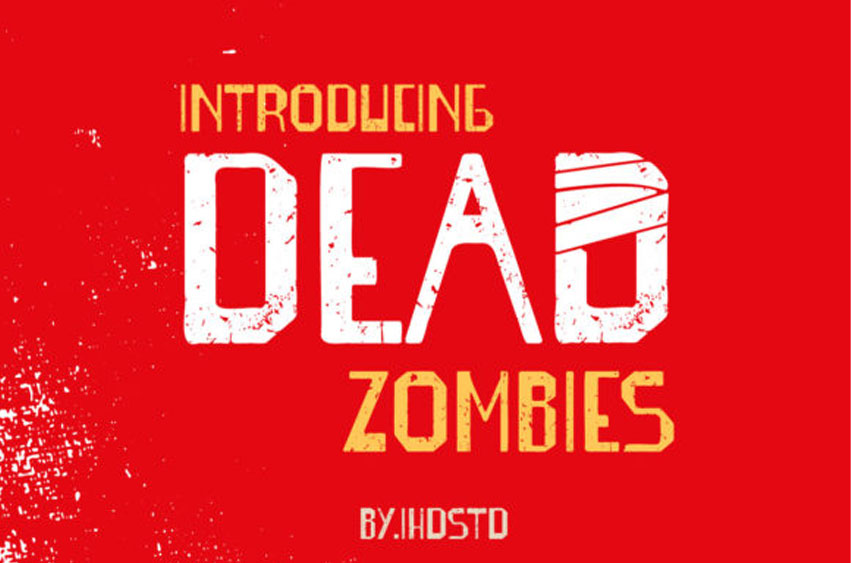
Dead Zombies Font
Dead Zombies Font is a bold, rough textured display font. The font is suitable for any branding project like logo, t-shirt printing, sporting design, and many more.
It will look outstanding in a wide range of contexts.